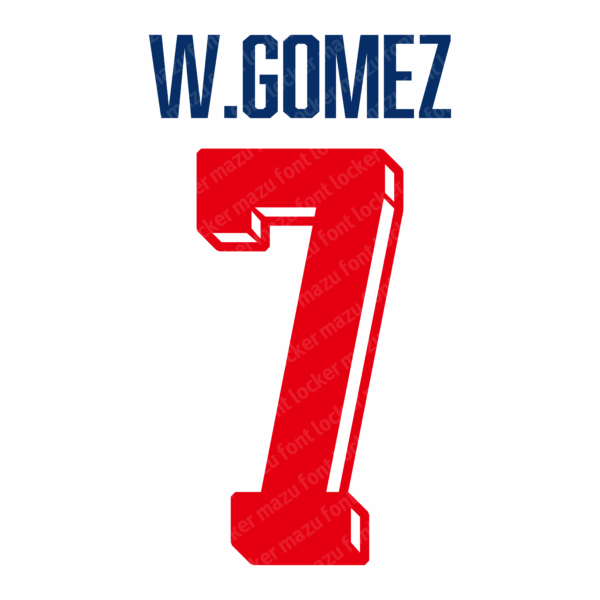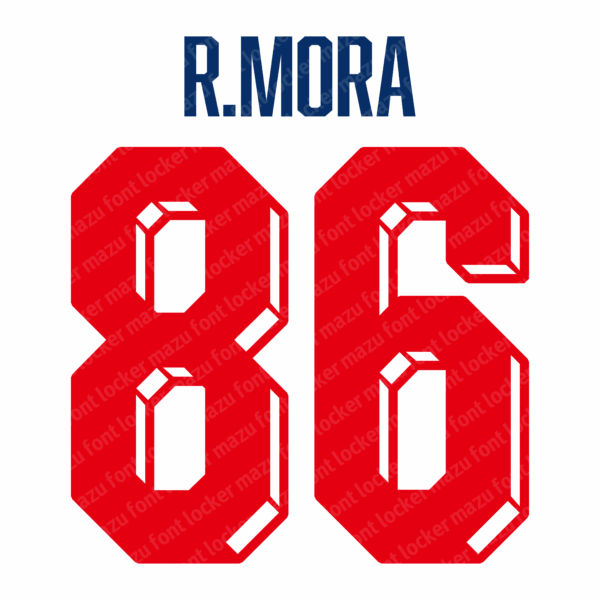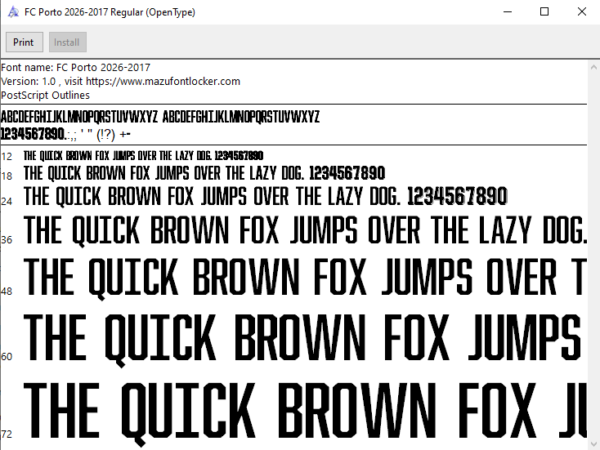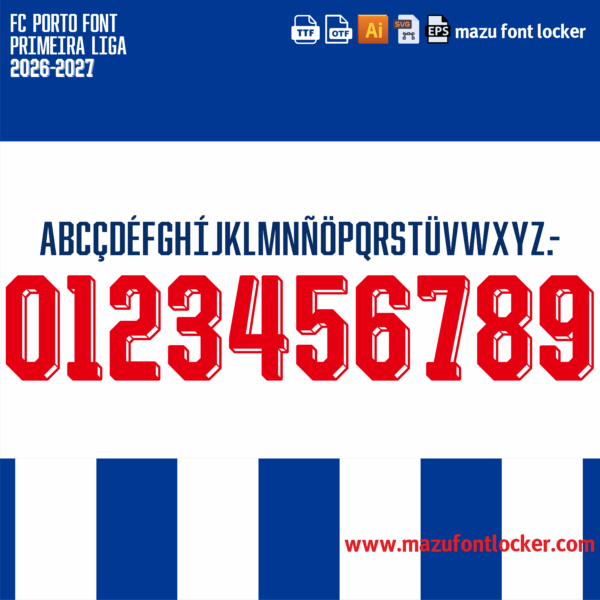
FC Porto 2026-2027 Font Vector – Epic Dragões Dominance Masterpiece
Download the FC Porto 2026-2027 Font and experience the raw power of the Dragões in every design. This premium vector font is expertly crafted to deliver the exact bold, aggressive, and commanding lettering style used by FC Porto during the explosive 2026-2027 season.
Unlike ordinary fonts, the FC Porto 2026-2027 Font is built with obsessive precision and authenticity, giving your creations an official stadium-level presence. Perfect for matchday posters, custom jerseys, fan merchandise, social media content, sublimation printing, and professional sports branding.
Elevate your designs instantly and let the blue and white fire of Estádio do Dragão burn through your projects. Whether you’re a designer, content creator, or devoted fan — this is the ultimate FC Porto 2026-2027 Font you’ve been waiting for.
FC Porto 2026-2027 Font Vector
The FC Porto 2026-2027 Font is a premium, high-precision football jersey font vector meticulously engineered to capture the fearless energy, explosive dominance, and electrifying identity of FC Porto’s legendary 2026-2027 campaign.
Inspired by the mighty Dragões and their iconic high-intensity performances throughout the unforgettable 2026-2027 season, this font unleashes a bold, aggressive, and majestic presence that radiates unbreakable Porto pride, rich Portuguese heritage, and unstoppable warrior spirit. Every letter and number has been painstakingly recreated with razor-sharp precision to embody the vibrant blue and white identity, relentless fighting mentality, and glorious legacy that makes FC Porto one of the most passionate and feared forces in Portuguese and European football.
Feel the fire of Estádio do Dragão. Ignite the passion. Unleash the legendary spirit of the Dragões and the unstoppable power of FC Porto 2026-2027.
🔥 FC Porto 2026-2027 Font Features
• Authentic 2026-2027 FC Porto jersey lettering style
The authentic lettering style helps recreate the classic look of the FC Porto 2026-2027 kit with professional accuracy.
Unlike generic jersey fonts, this premium set is crafted with obsessive attention to authenticity and unmatched precision. Every detail is faithfully recreated from the original match lettering style used by FC Porto during the explosive 2026-2027 season — capturing the true fire, dominance, and unbreakable spirit of the mighty Dragões.
This enables designers and collectors to create ultra-realistic football shirt designs that look like official kits straight from the iconic Estádio do Dragão.
The fully scalable vector format offers complete flexibility for any project size — from premium custom jerseys and high-resolution digital artwork to massive stadium banners and personal collections. Flawless quality at every scale.
This FC Porto 2026-2027 font vector set is designed for authentic football jersey customization and works perfectly for retro football projects, collector designs, and professional sportswear artwork.